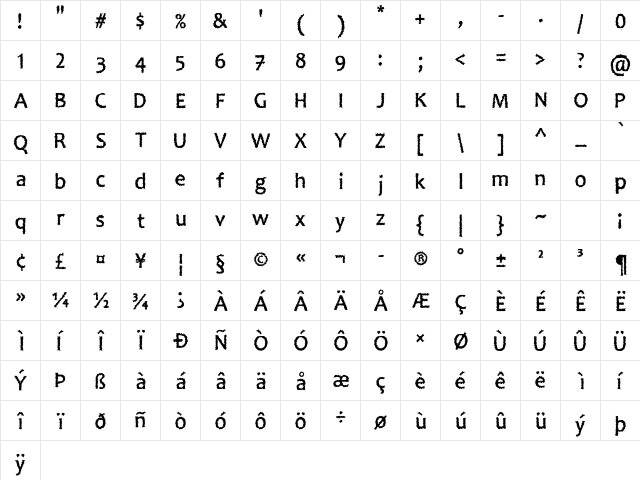
Necros Regular
Design Context for Necros Typeface
Necros offers clean, dependable letterforms without strong stylistic allegiance, making it a practical choice for designers who need flexibility.